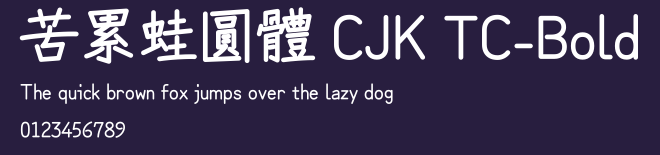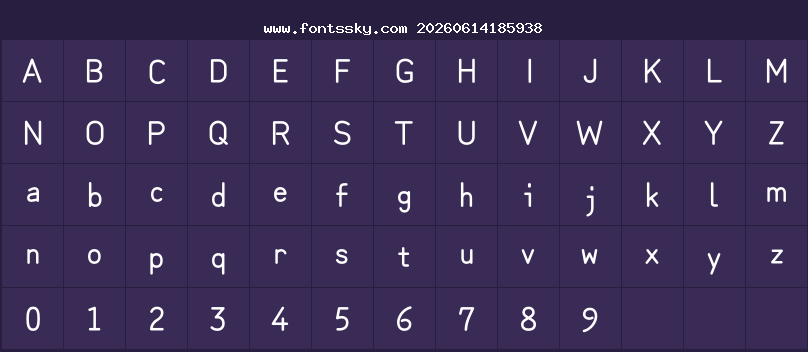
苦累蛙圓體 CJK TC-Bold Preview
• Font Name: 苦累蛙圓體 CJK TC-Bold
• Full Font Name: 苦累蛙圓體 CJK TC-Bold
• Designer: Max Yao
• Manufacturer: Max-Everyday
About 苦累蛙圓體 CJK TC-Bold.ttf
苦累蛙圓體 CJK TC-Bold.ttf is a modern, elegant sans-serif font designed for ultimate readability and visual harmony. Perfect for branding, headlines, web design, and print materials.